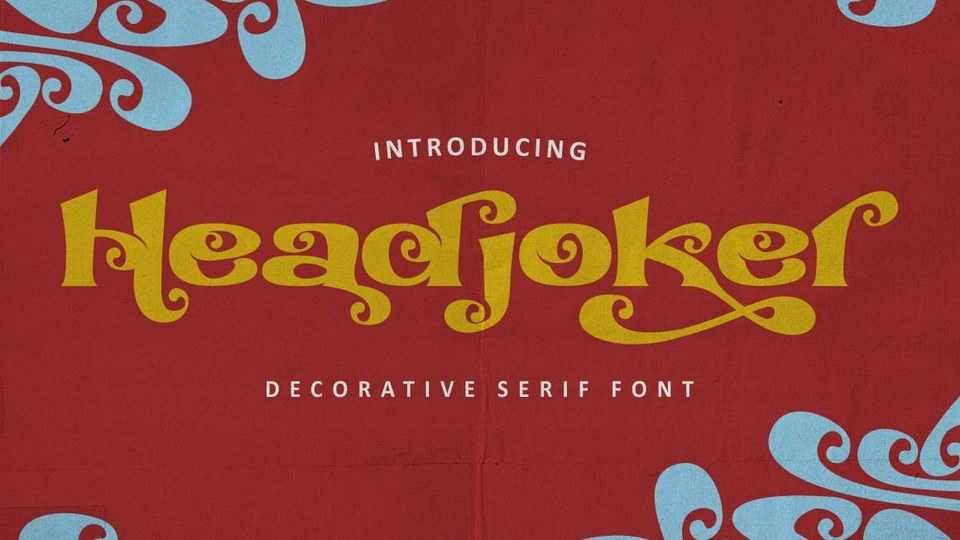
Download Headjoker font, a bold, clean and unique display serif with vintage fell. Headjoker is very versatile font that works great in large and small sizes.